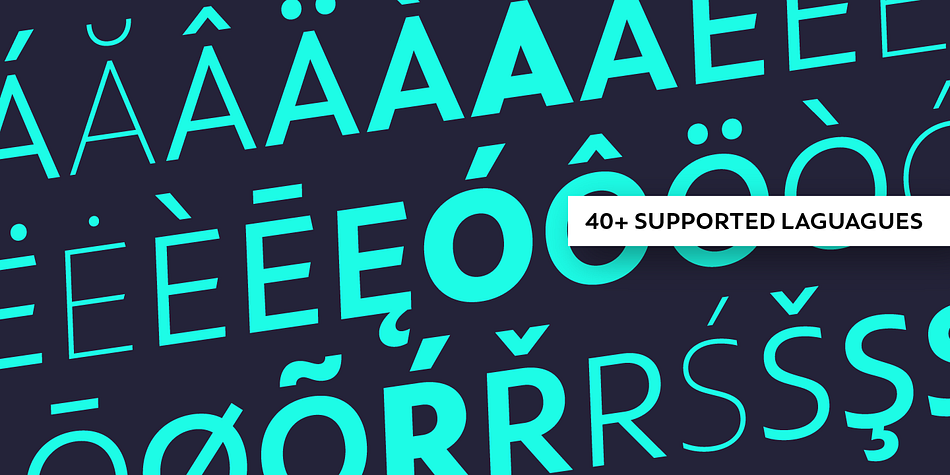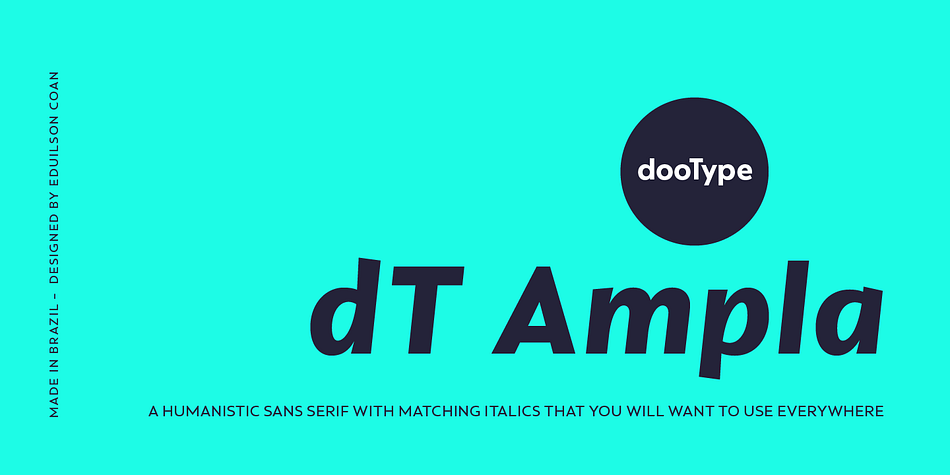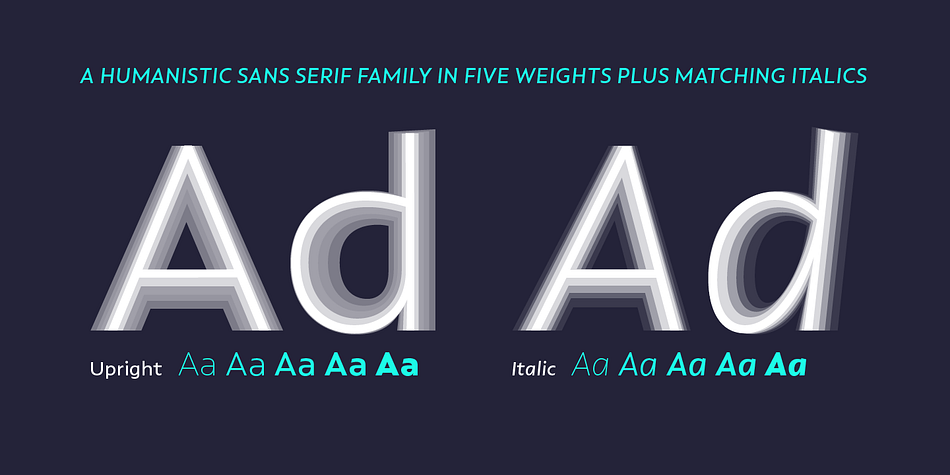
Designed by Eduilson Wessler Coan, dT Ampla is a sans serif font family. This typeface has ten styles and was published by dooType.
dT Ampla shares many characteristics of the versatile sans typefaces of today: nice range of five weights with matching italics, 40+ supported languages, contemporary upper-to-lowercase proportions and impeccable performance in big and text sizes.
However, all these features are designed with distinct shapes and details. Notice the angled terminals – the cut at the end of the strokes – or how the vertical strokes in the italics seem to ‘bend’ a little, for instance.
The sum of these and many more design decisions result in a typeface capable of delivering a strong presence to sites, interfaces, apps, magazines and corporate graphic language.